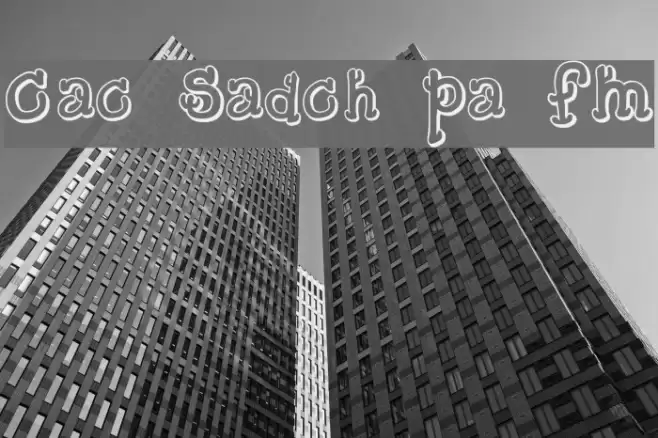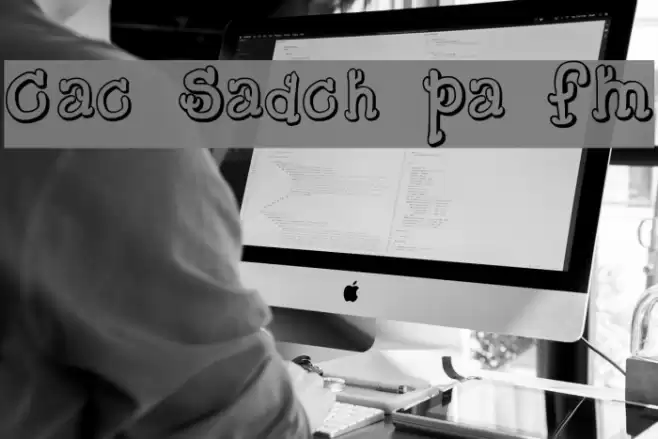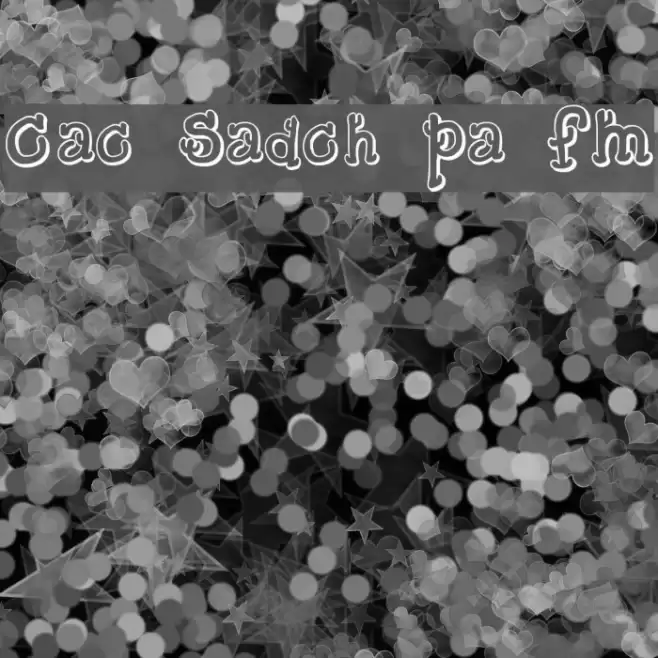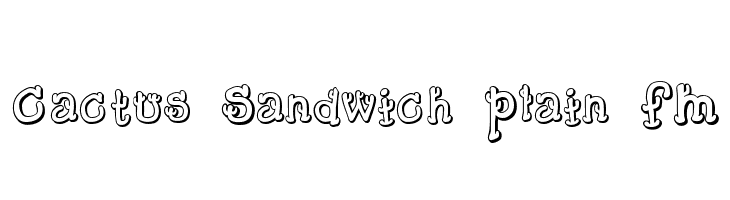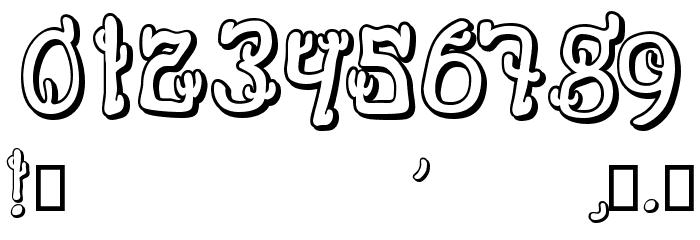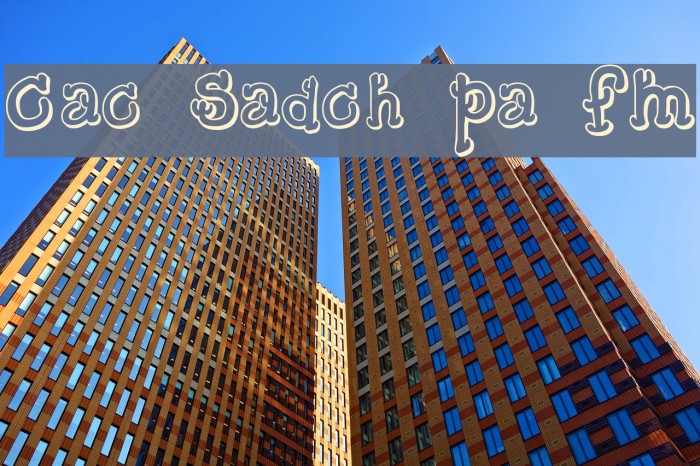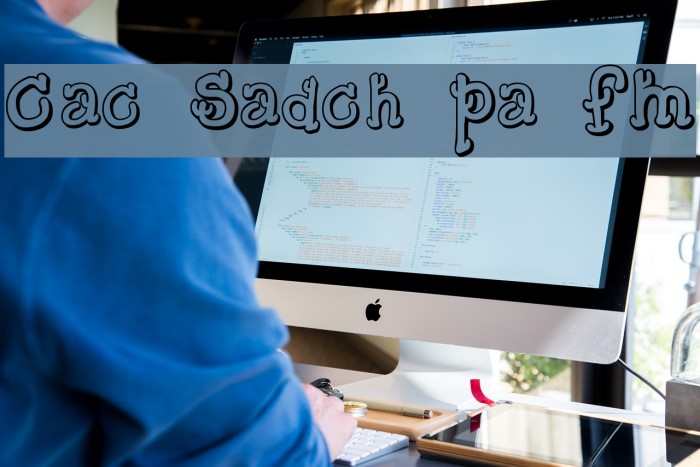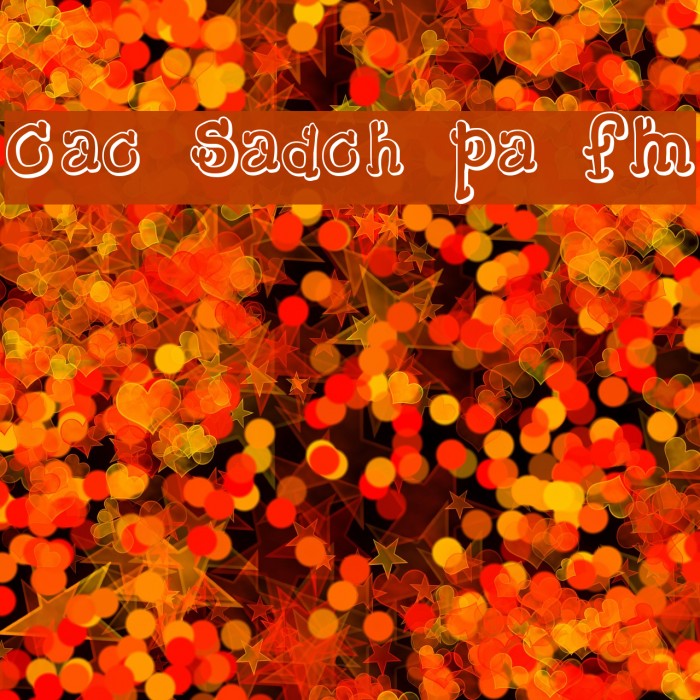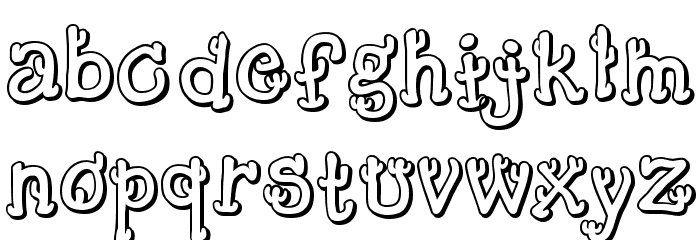
Cactus Sandwich Plain FM Font
Cactus Sandwich Plain FM Description
This playful and whimsical font features a bold outline with a slightly irregular, hand-drawn appearance. Each character is adorned with unique, decorative elements that resemble small spikes or thorns, giving it a quirky and distinctive look. The font maintains a consistent weight throughout, with rounded edges and a friendly, approachable style. Its decorative nature makes it stand out, while the clear and legible letterforms ensure readability. The numbers and special characters follow the same playful design, making it suitable for creative and informal projects.
A whimsical, decorative font with bold outlines and playful thorn-like details from Uncategorized fonts.
- Proposed Projects: Ideal for children's book covers, playful posters, greeting cards, and creative branding projects.